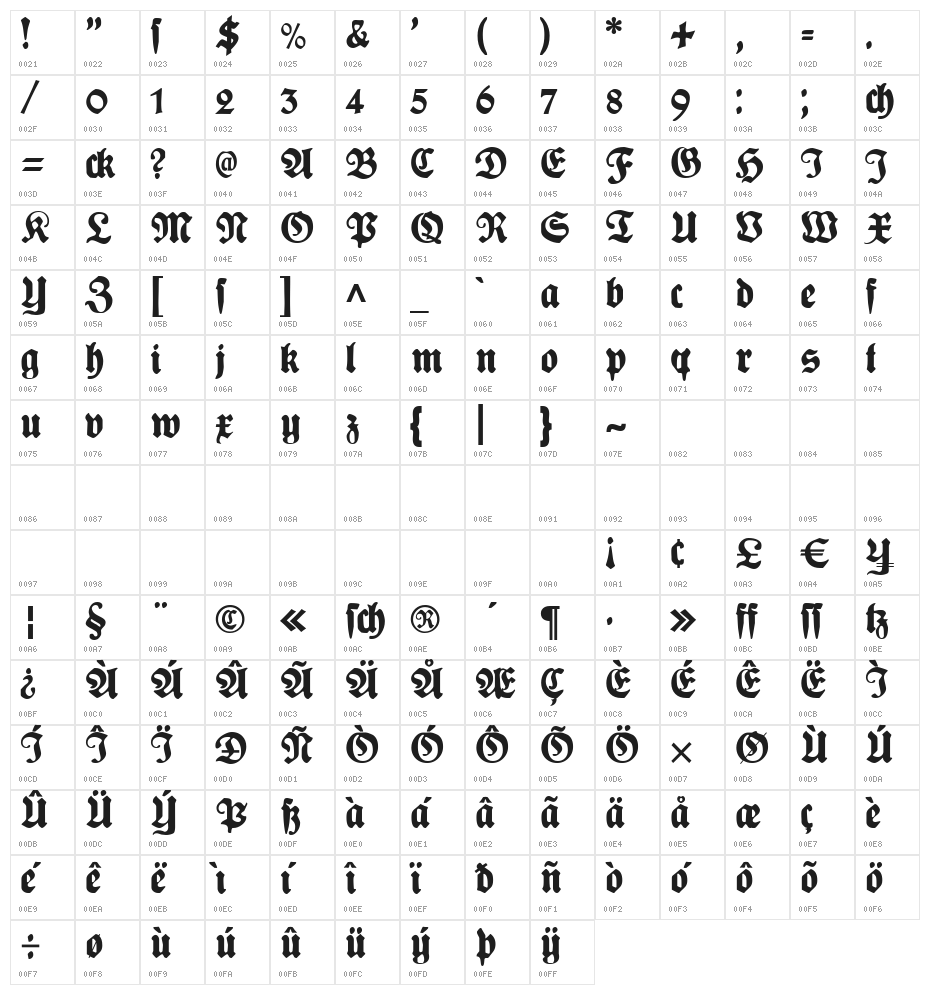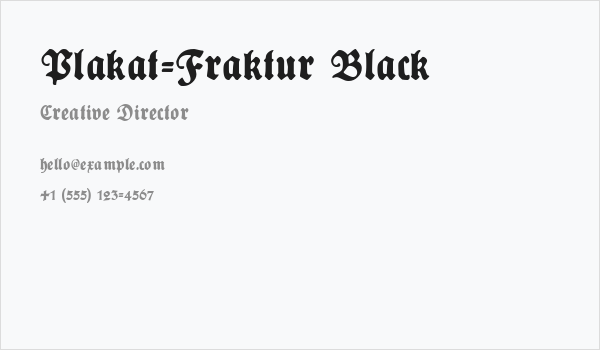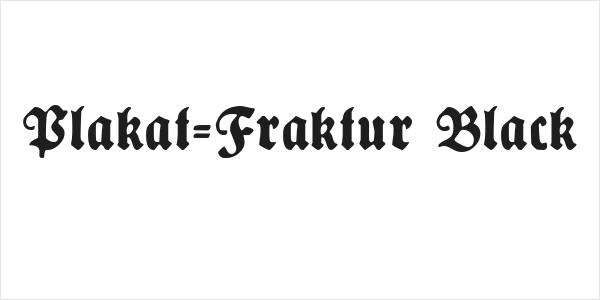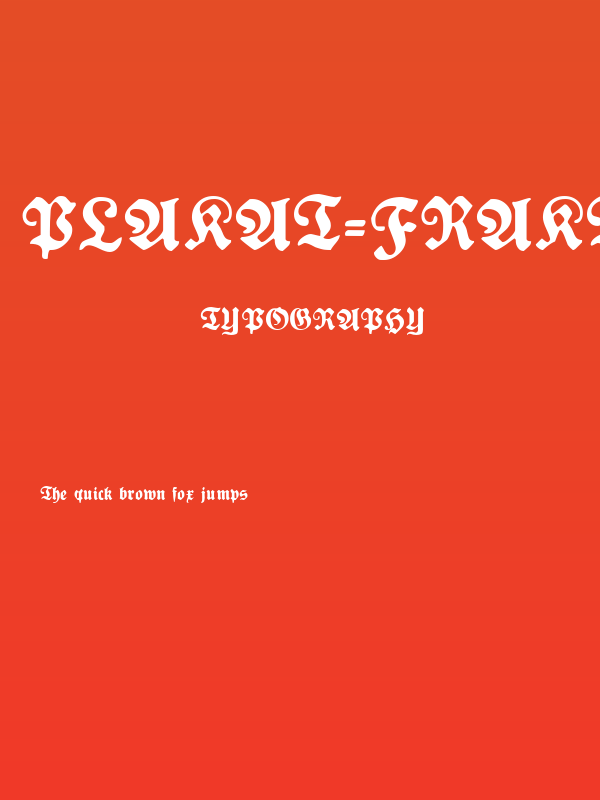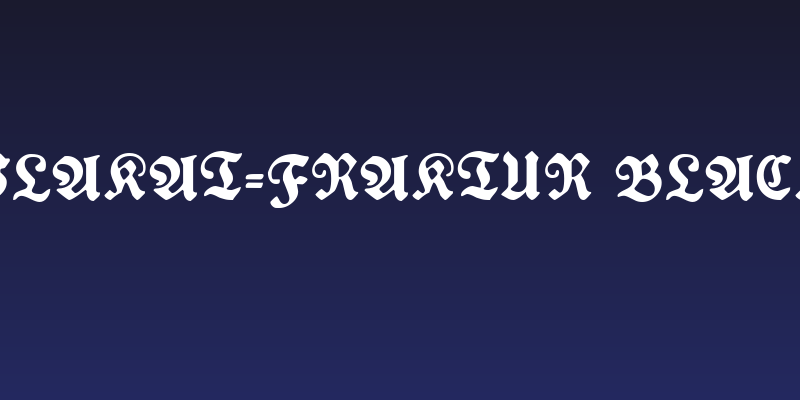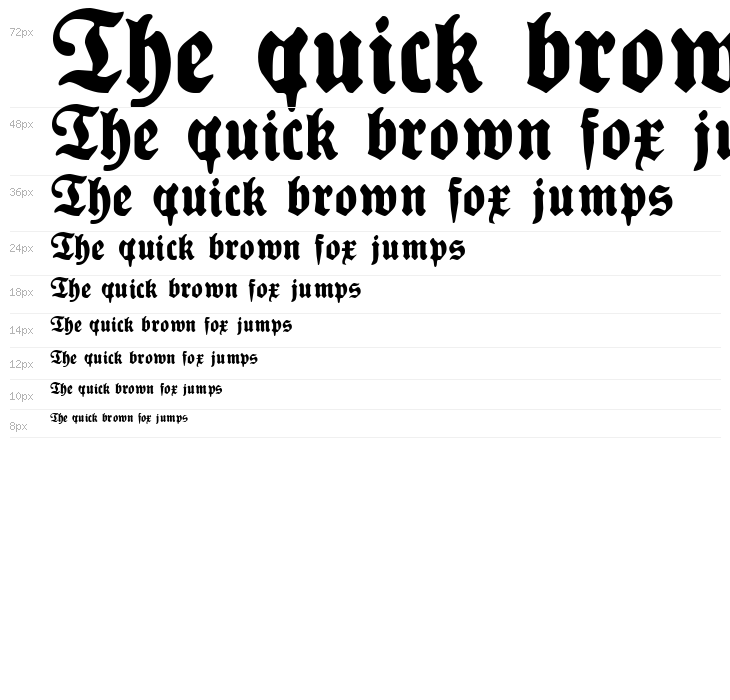
Plakat-Fraktur Black Font
Plakat-Fraktur Black Description
This font features a bold and dramatic style, reminiscent of traditional blackletter typography. The characters are ornate with intricate details, showcasing sharp angles and elaborate curves that give it a historical and authoritative appearance. The uppercase letters are particularly striking with their pronounced serifs and decorative elements, while the lowercase letters maintain a consistent flow and balance. The numerals are robust and complement the overall aesthetic, adding to the font's versatility. Special characters are designed to match the ornate style, ensuring cohesion across all text elements. This font is ideal for projects that require a touch of elegance and tradition.
| Use Case | Headlines, Logos, Decorative text |
| Proposed Projects | Suitable for vintage posters, historical documents, branding for luxury products, or any project needing a classic and authoritative look. |